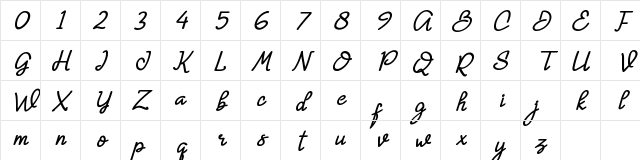
Hanna Monica Regular
Designer: Subectype. 2019
Design Context for Hanna Monica
Hanna Monica is a composed and adaptable typeface that performs quietly and consistently across a wide range of design contexts.